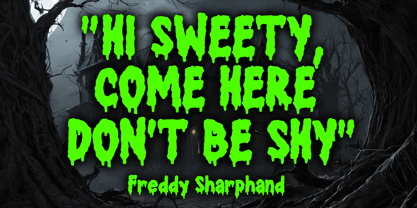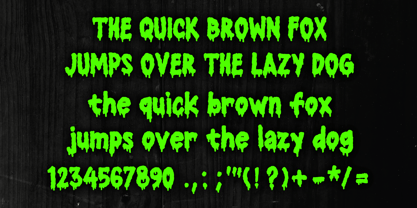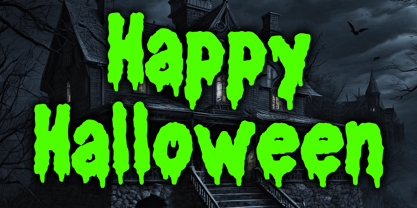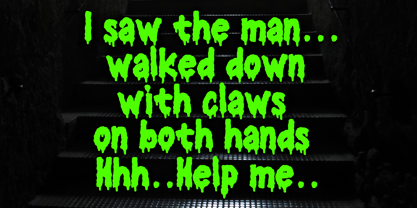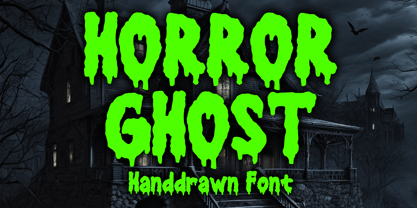
Horror Ghost
Die Schriftfamilie Horror Ghost wurde von Gabriel Valentinus entworfen und von Mvmet veröffentlicht. Horror Ghost enthält 1 Stile. Mehr über diese Familie
Horror Ghost is a bold font with cool ink drips inspired by vintage horror movies, horror comics, and Metal music. It will be perfect for your horror and Halloween themed needs! You can use it for anything ranging from merchandise like t-shirts and clothing, for your scary book designs, Halloween party needs, greeting cards, stickers, posters, banners, or anything that needs a horror touch.
Designer: Gabriel Valentinus
Foundry: Mvmet